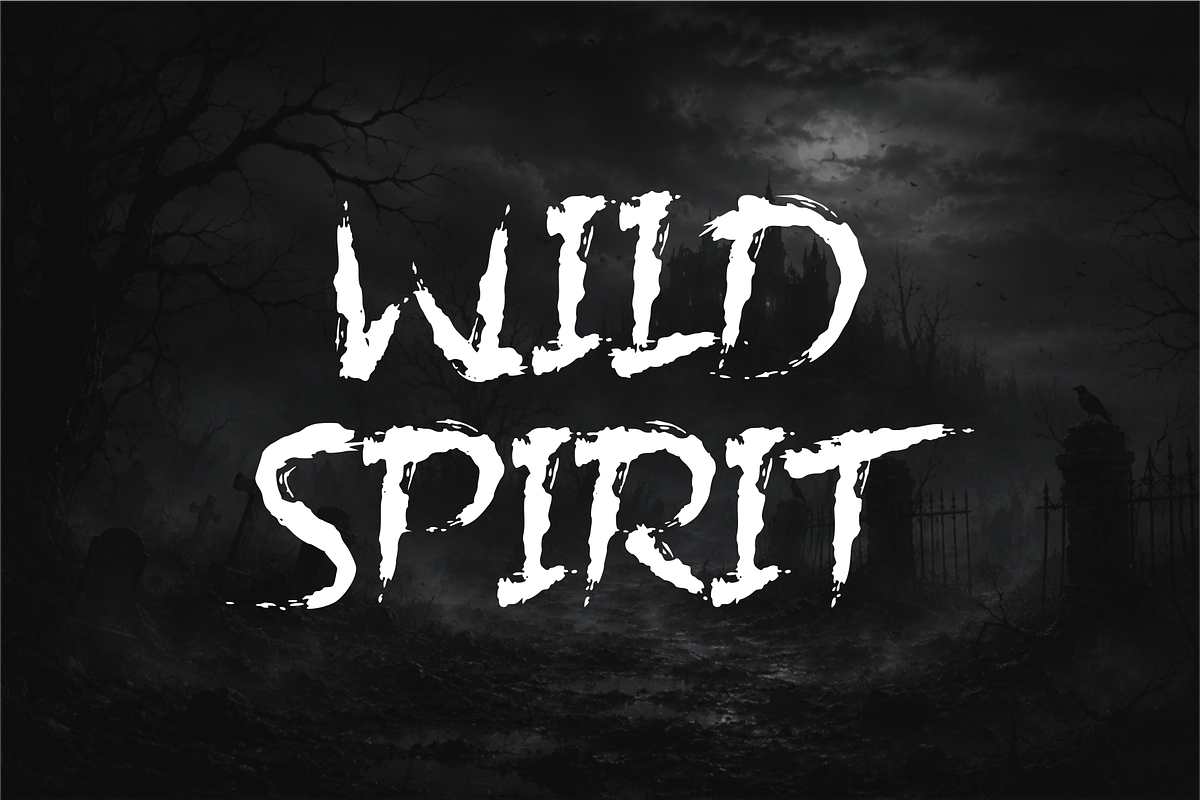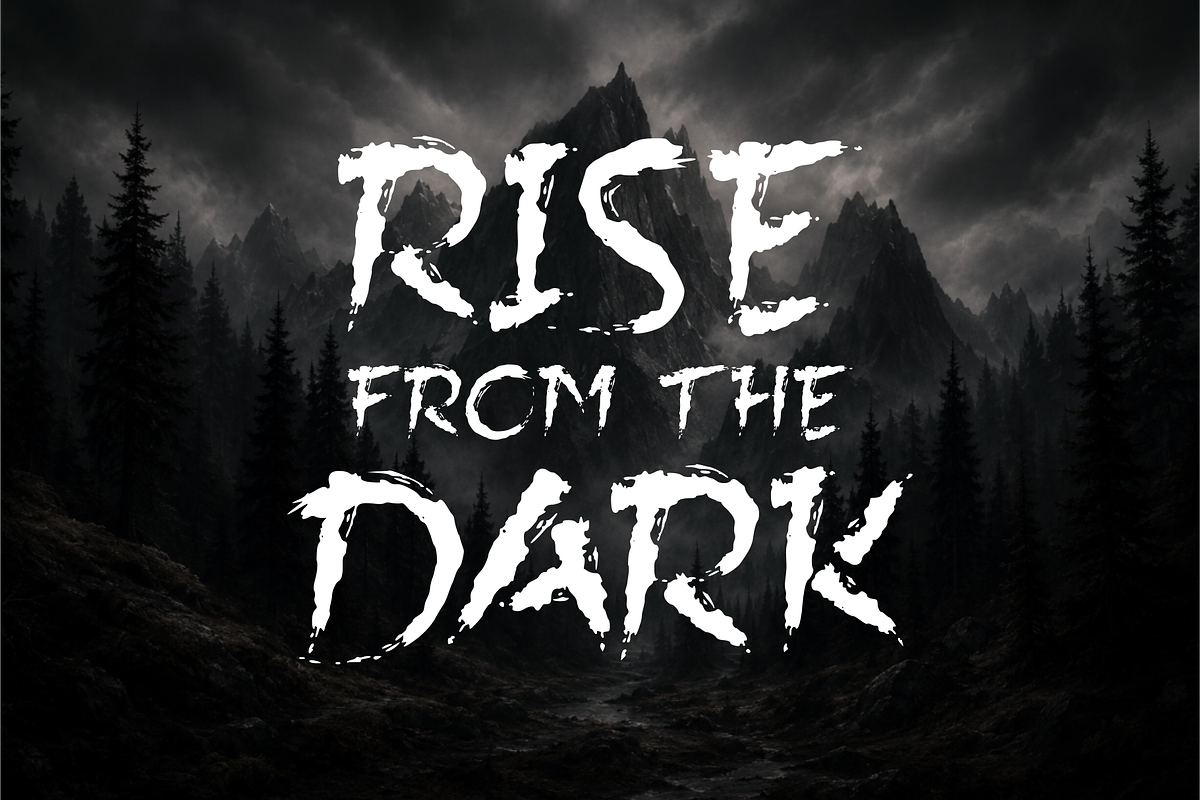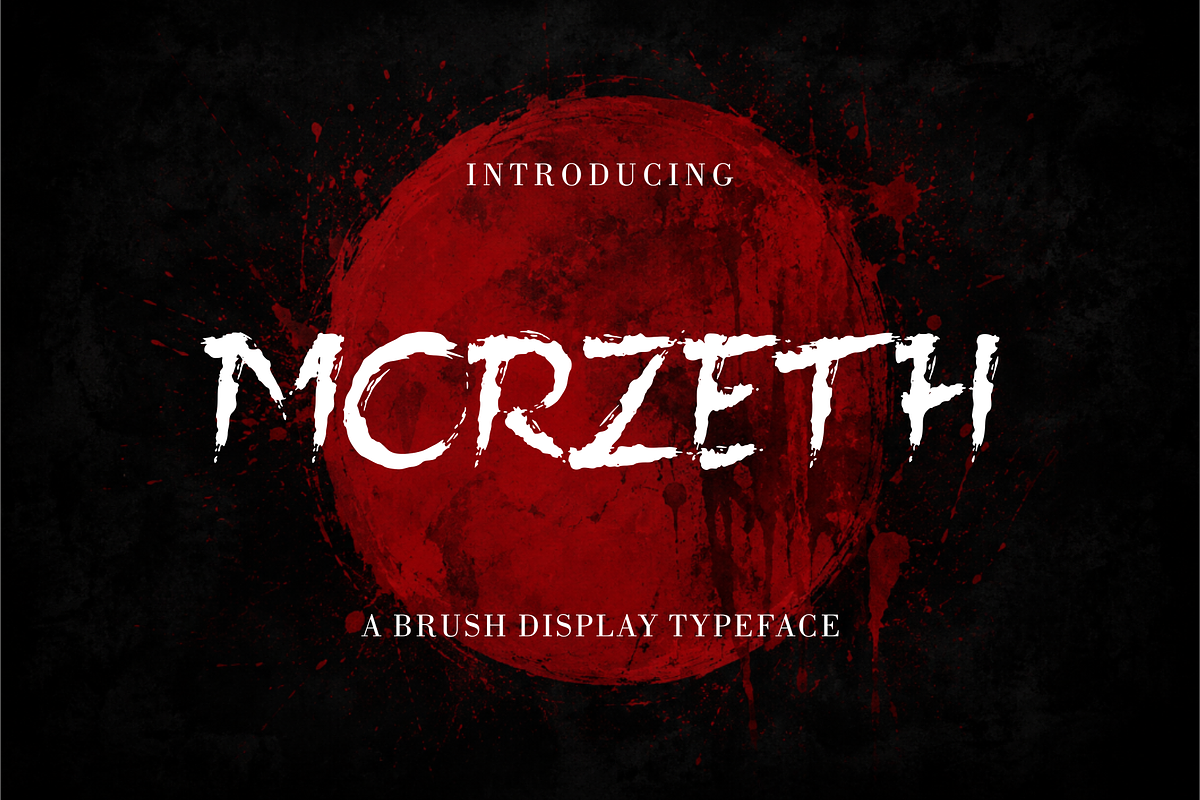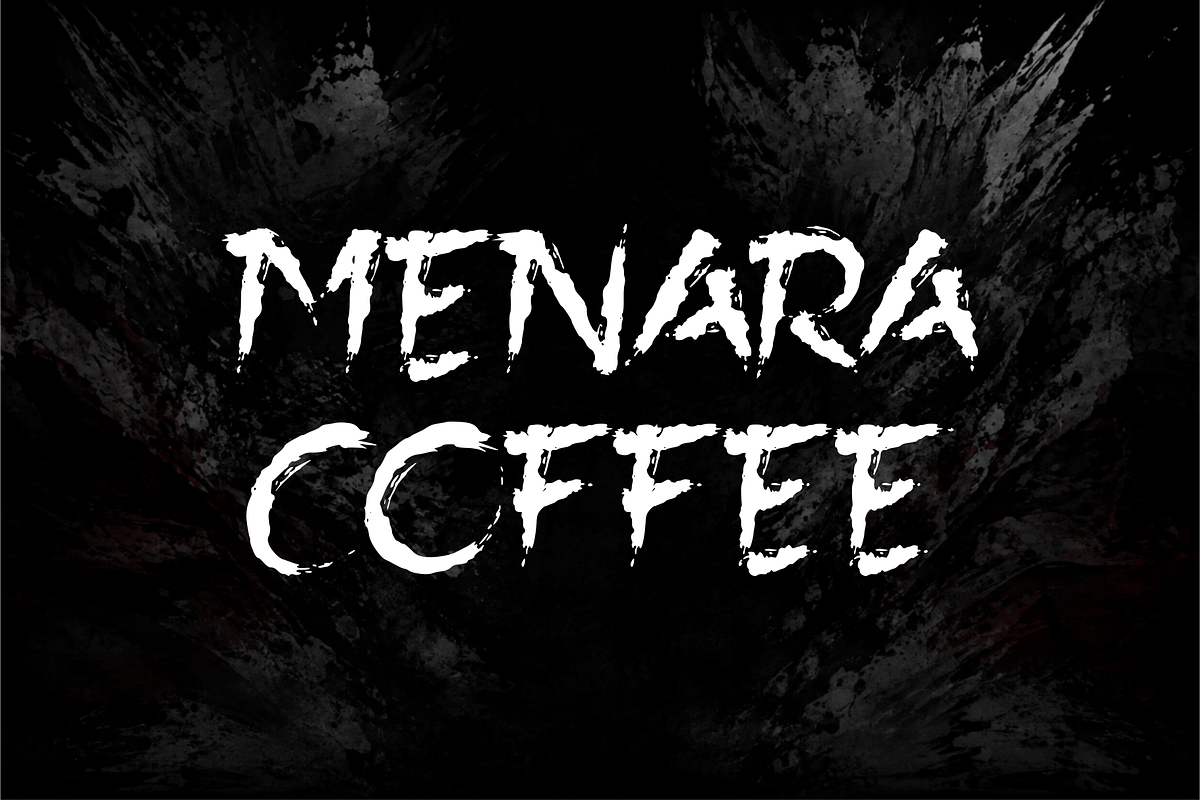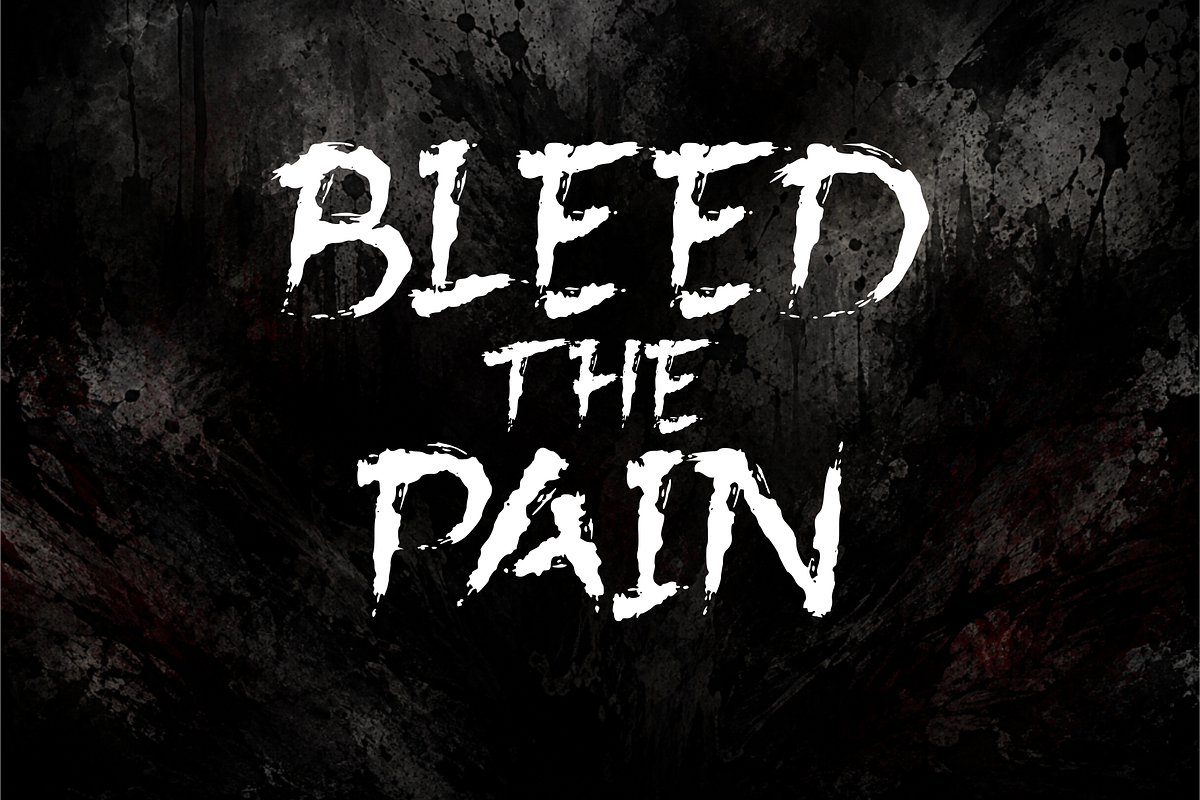
Morzeth-Horror Brush Display
Morzeth is a bold horror brush display font inspired by dark forests, abandoned places, and raw hand-painted brush strokes. Every letter is crafted with rough textures, distressed edges, and aggressive ink splashes to create a fearless and dramatic appearance.
Designed for creators who want to make a powerful visual impact, Morzeth delivers an authentic handcrafted style that feels wild, mysterious, and unapologetically bold. Whether you're designing horror movie posters, Halloween branding, album covers, apparel, game titles, or eye-catching social media graphics, this font adds an intense atmosphere to every project.
Its organic brush texture and rugged character make it perfect for designs that demand emotion, energy, and a touch of darkness.
Uppercase Letters
Stylistic Brush Look
Handcrafted Texture
Morzeth is the perfect choice for designers looking to create bold, dark, and unforgettable typography with a genuine handcrafted horror aesthetic. Unleash your creativity and bring every project to life with a brush font that refuses to blend in.